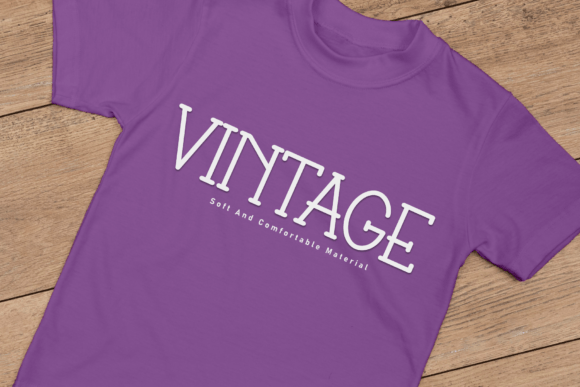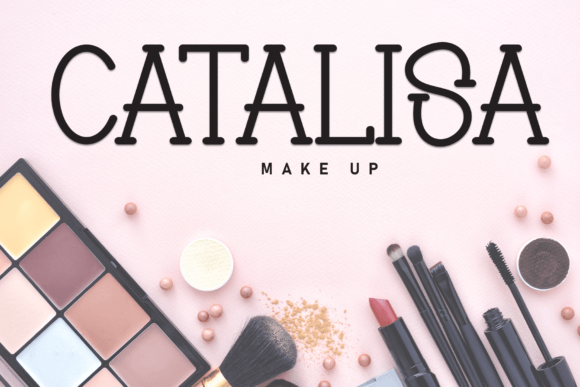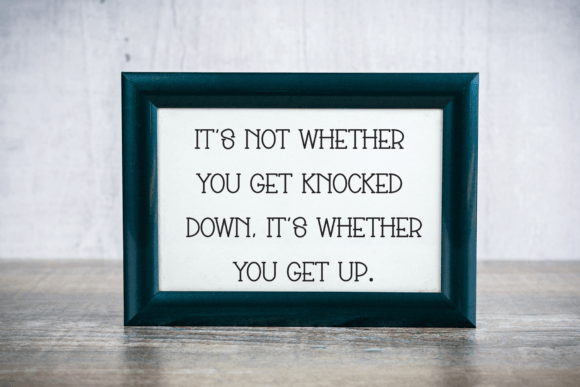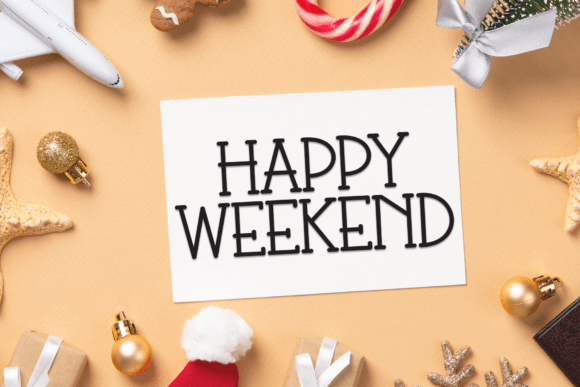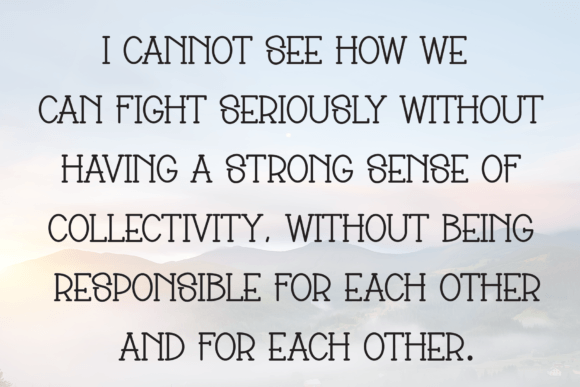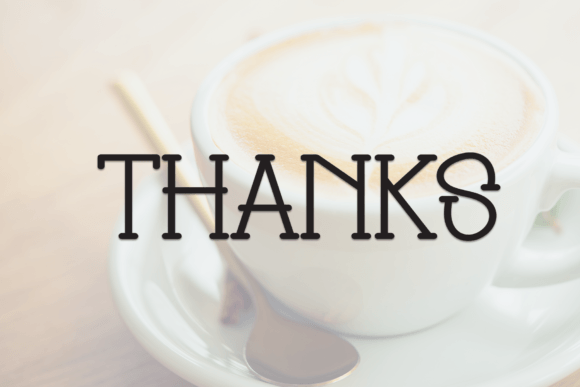
Coffee Latte Font: The Perfect Addition to Your Design Projects
Are you a designer or crafter looking for a font that can add a touch of sweetness and friendliness to your projects? Look no further than the Coffee Latte font! This beautiful, handwritten font is perfect for creating wedding invitations, cards, and other designs that require a fun and playful touch.
What is Coffee Latte Font?
Coffee Latte is a sweet and friendly handwritten font that is sure to capture the hearts of anyone who sees it. With its cute and fun design, this font is ideal for adding a personal touch to your projects. Whether you’re creating wedding invitations, birthday cards, or any other type of design, Coffee Latte font is the perfect choice.
Characteristics of Coffee Latte Font
Coffee Latte font has several characteristics that make it stand out from other fonts. Some of its key features include:
- Handwritten design: Coffee Latte font has a beautiful, handwritten design that gives it a personal and unique touch.
- Sweet and friendly: The font has a sweet and friendly feel to it, making it perfect for creating designs that require a playful touch.
- Cute and fun: Coffee Latte font is cute and fun, making it ideal for creating designs that require a lighthearted and playful touch.
Uses of Coffee Latte Font
Coffee Latte font can be used for a variety of design projects, including:
- Wedding invitations: The font’s sweet and friendly design makes it perfect for creating beautiful wedding invitations.
- Cards: Coffee Latte font is ideal for creating birthday cards, thank-you cards, and other types of cards that require a personal touch.
- Designs that require a fun touch: The font’s cute and fun design makes it perfect for creating designs that require a playful touch, such as party invitations, flyers, and brochures.
Benefits of Using Coffee Latte Font
There are several benefits to using Coffee Latte font in your design projects. Some of the benefits include:
- Unique and personal touch: The font’s handwritten design gives it a unique and personal touch that sets it apart from other fonts.
- Easy to read: Coffee Latte font is easy to read, making it perfect for creating designs that require a clear and concise message.
- Versatile: The font can be used for a variety of design projects, making it a versatile addition to your font collection.
How to Use Coffee Latte Font
Using Coffee Latte font in your design projects is easy. Here are a few tips to get you started:
- Choose the right size: Choose a size that is easy to read and fits with the overall design of your project.
- Pair with other fonts: Coffee Latte font pairs well with other fonts, so feel free to experiment with different font combinations.
- Use it sparingly: Use Coffee Latte font sparingly to add a touch of personality to your designs.
Coffee Latte font is a beautiful, handwritten font that is perfect for adding a touch of sweetness and friendliness to your design projects. With its cute and fun design, this font is ideal for creating wedding invitations, cards, and other designs that require a playful touch. Whether you’re a designer or crafter, Coffee Latte font is a great addition to your font collection.